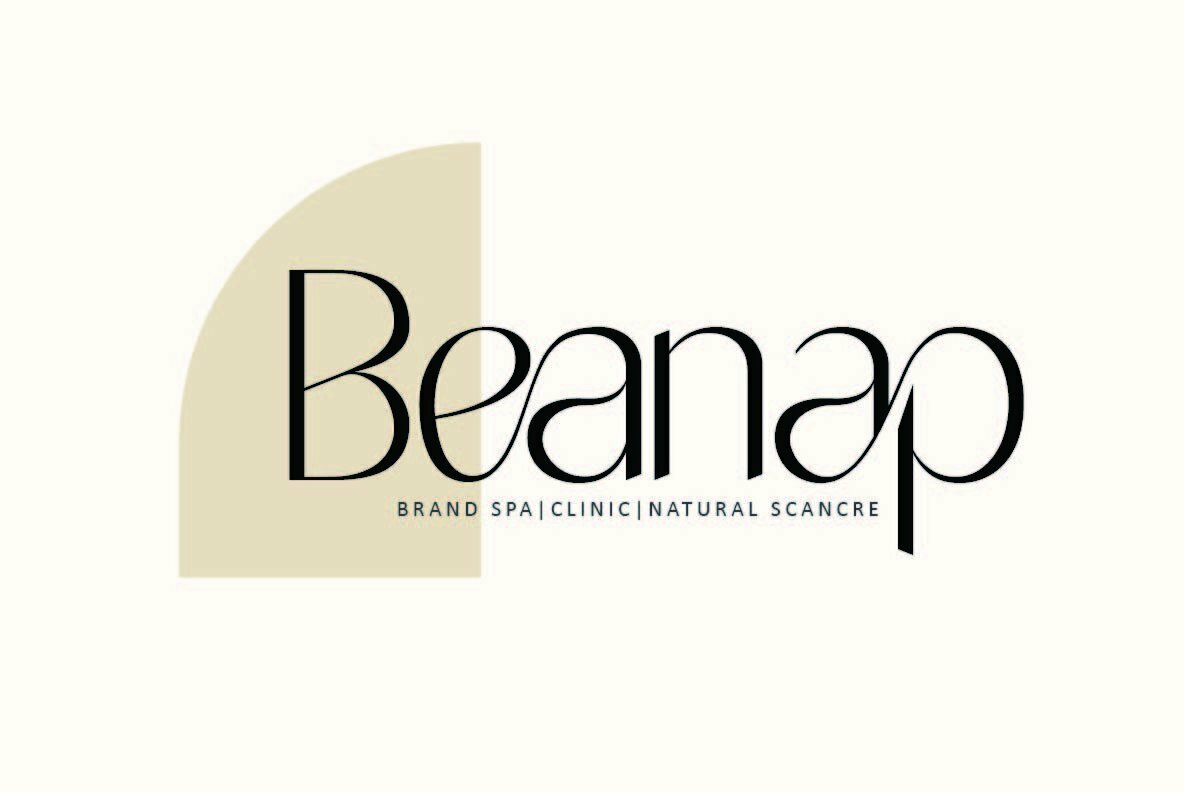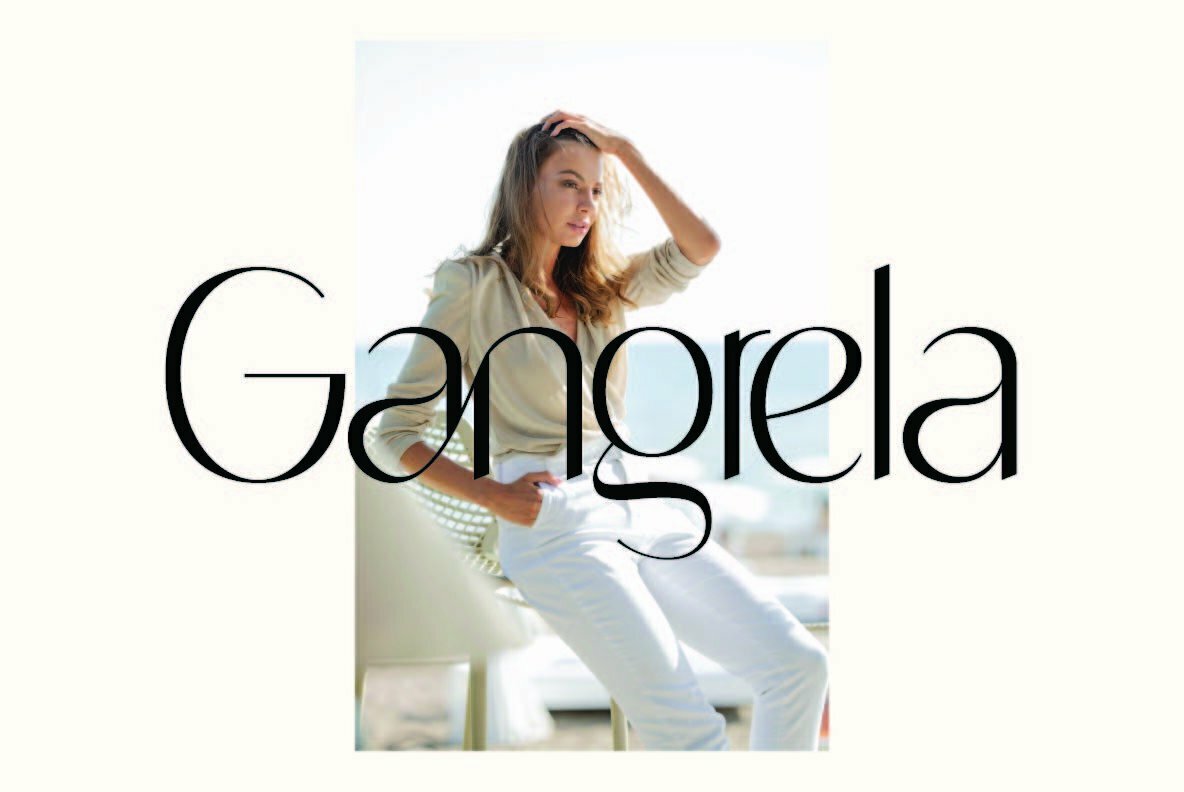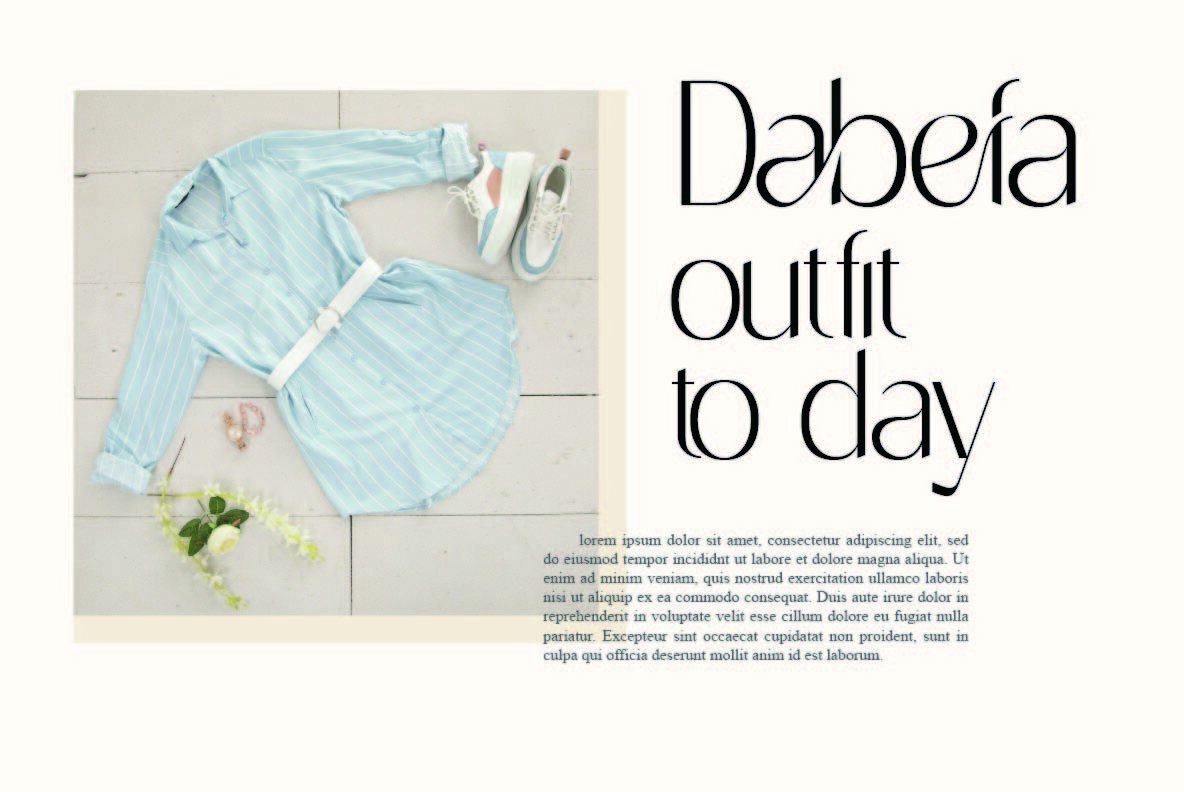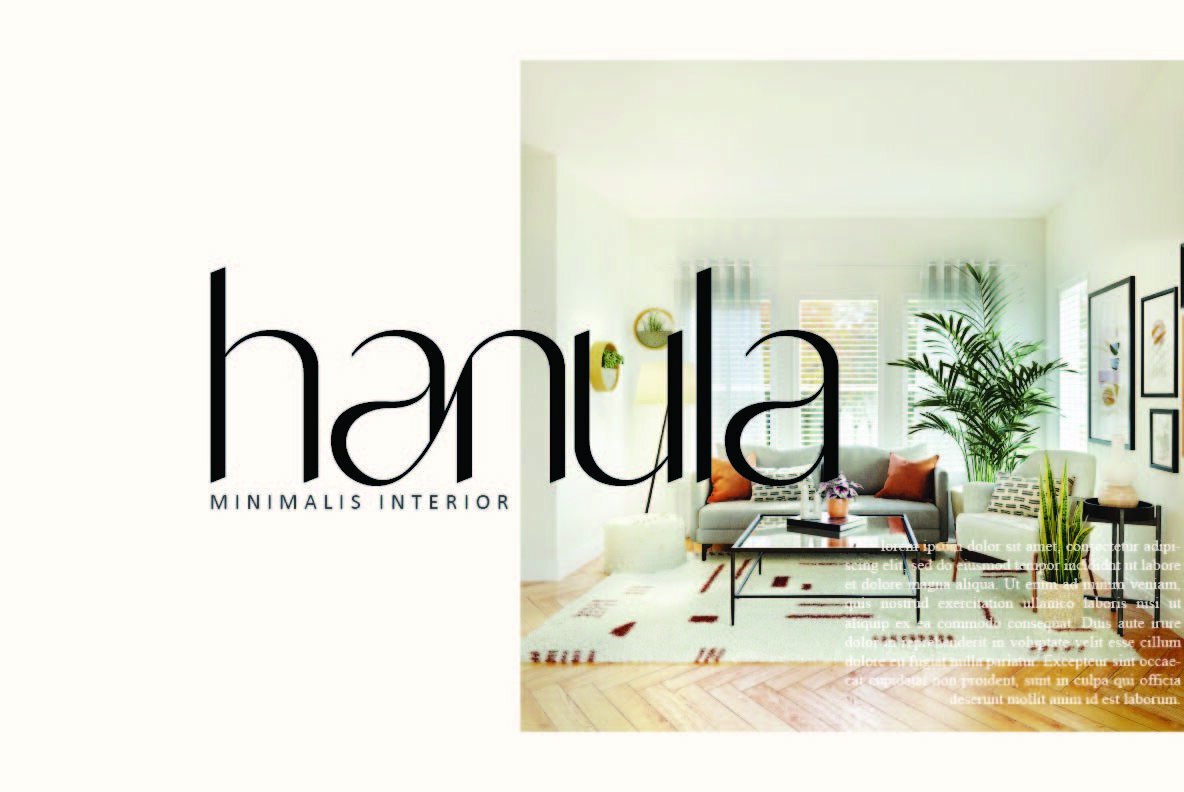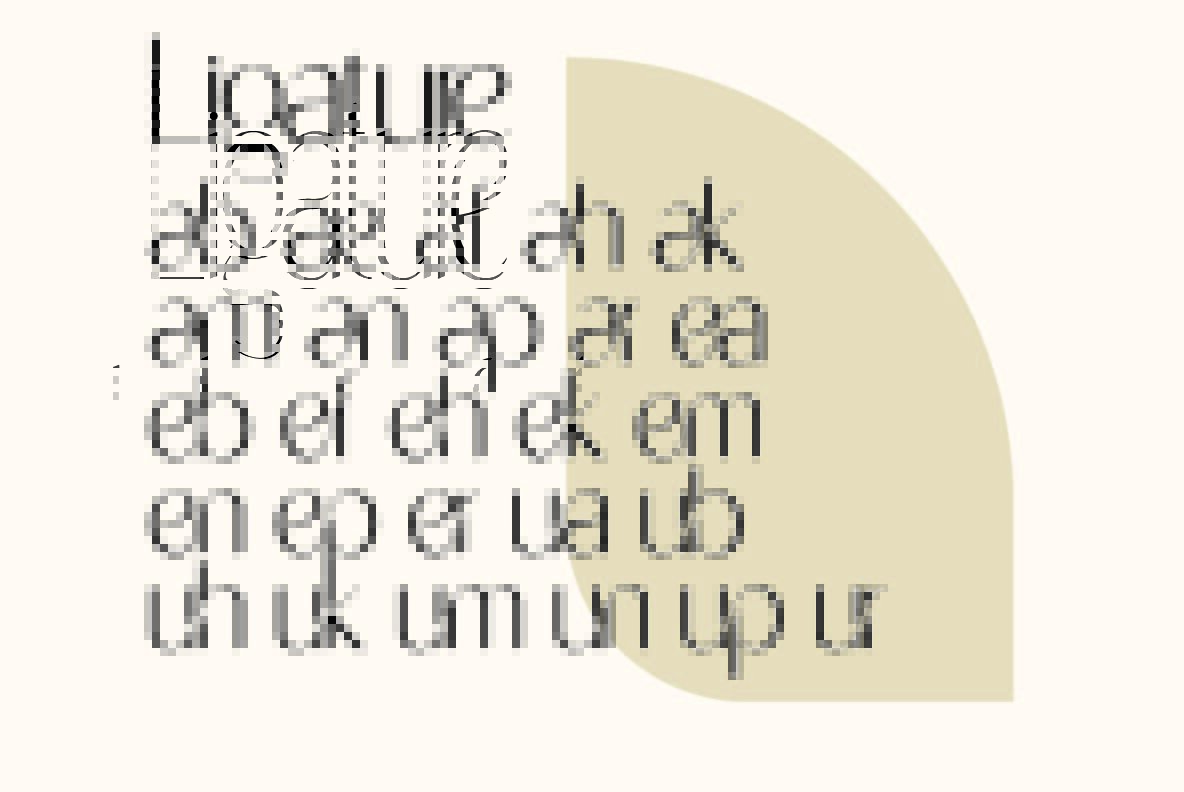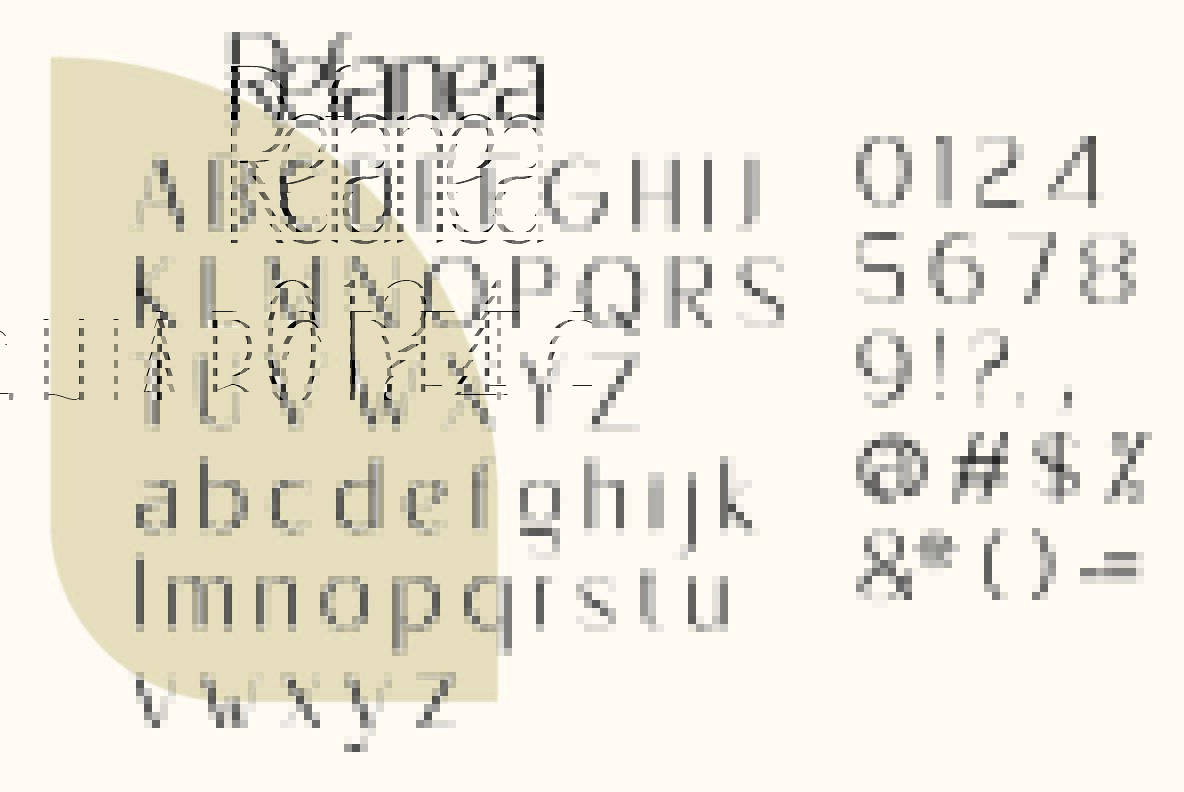
Refanea Font
Refanea Regular
Refanea stands out as a modern ligature sans serif typeface, prominently crafted by Muksal Creative. Its stylish appeal is further enhanced by special glyphs, unique ornaments, and comprehensive multilingual support. With its adaptable nature, Refanea is suitable for any scale, be it grand or diminutive. It is an excellent choice for editorial projects, logo design, and clothing branding. Additionally, it brings a sophisticated touch to product packaging and magazine headers, or simply provides a chic text overlay to any background image. Features:Refanea: A Distinctive Sans Serif Font